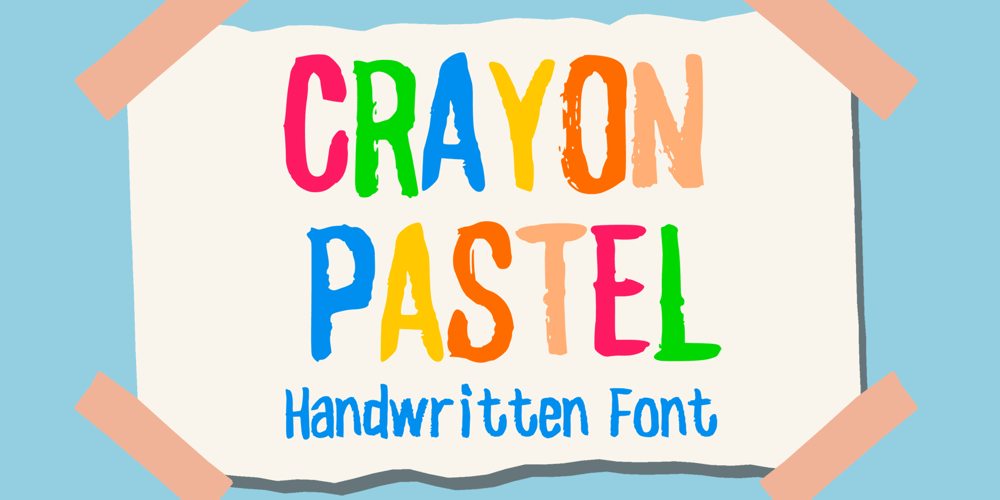
Crayon Pastel
Crayon Pastel font
Crayon Pastel Font Family was designed by Gabriel Valentinus and published by Mvmet. Crayon Pastel contains 1 styles and family package options. Crayon Pastel is a fun and playful crayon handwritten font that you can use it for anything ranging from t-shirts, book designs, packaging, and greeting cards to stickers and posters, or anything that needs a casual touch, it will be your perfect font to pick. Fall in love with its incredibly versatile style, and use it to create lovely designs!